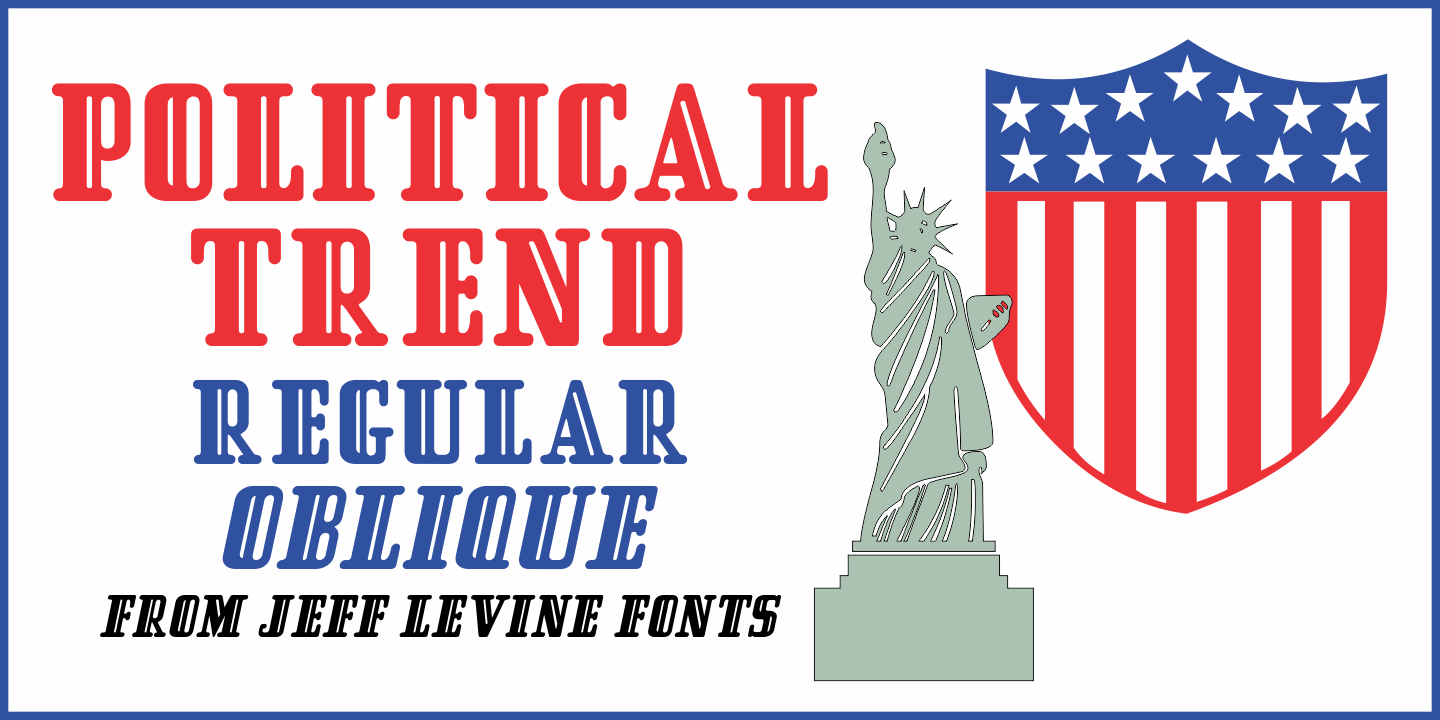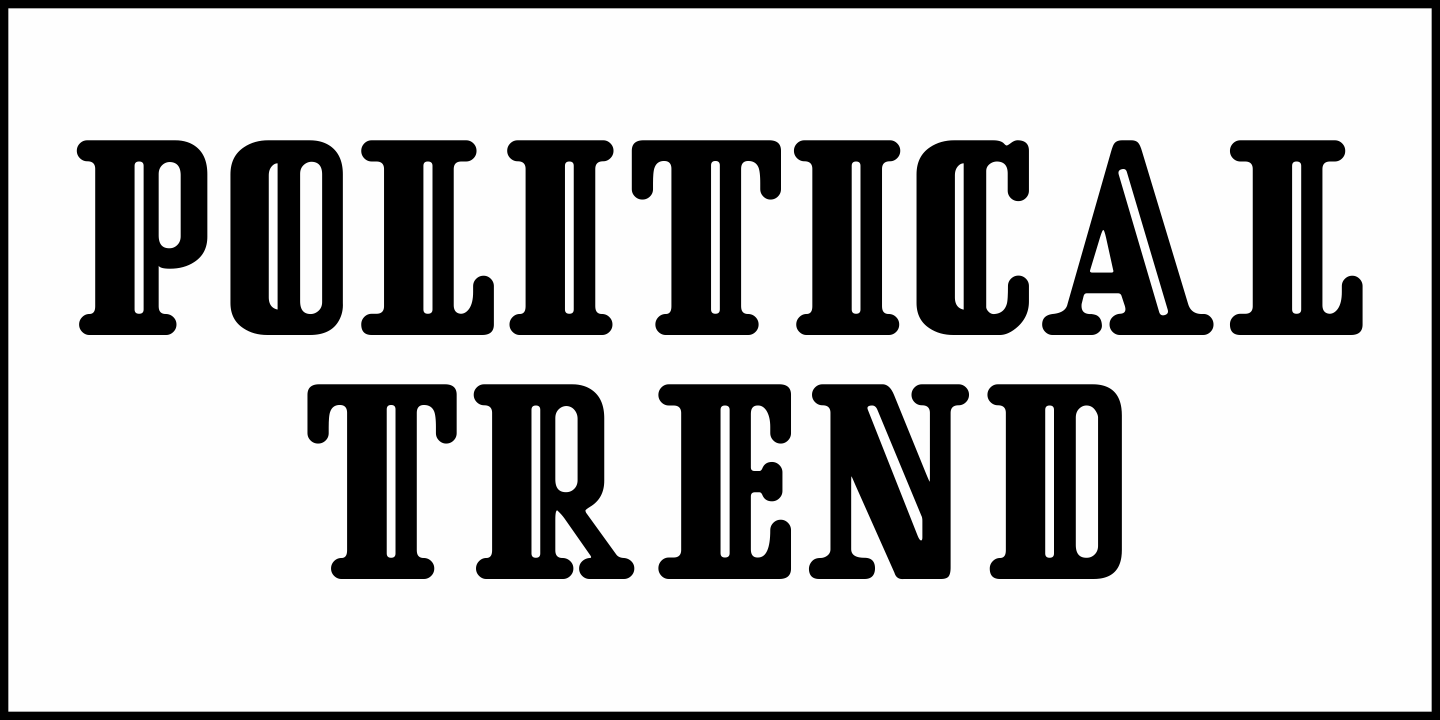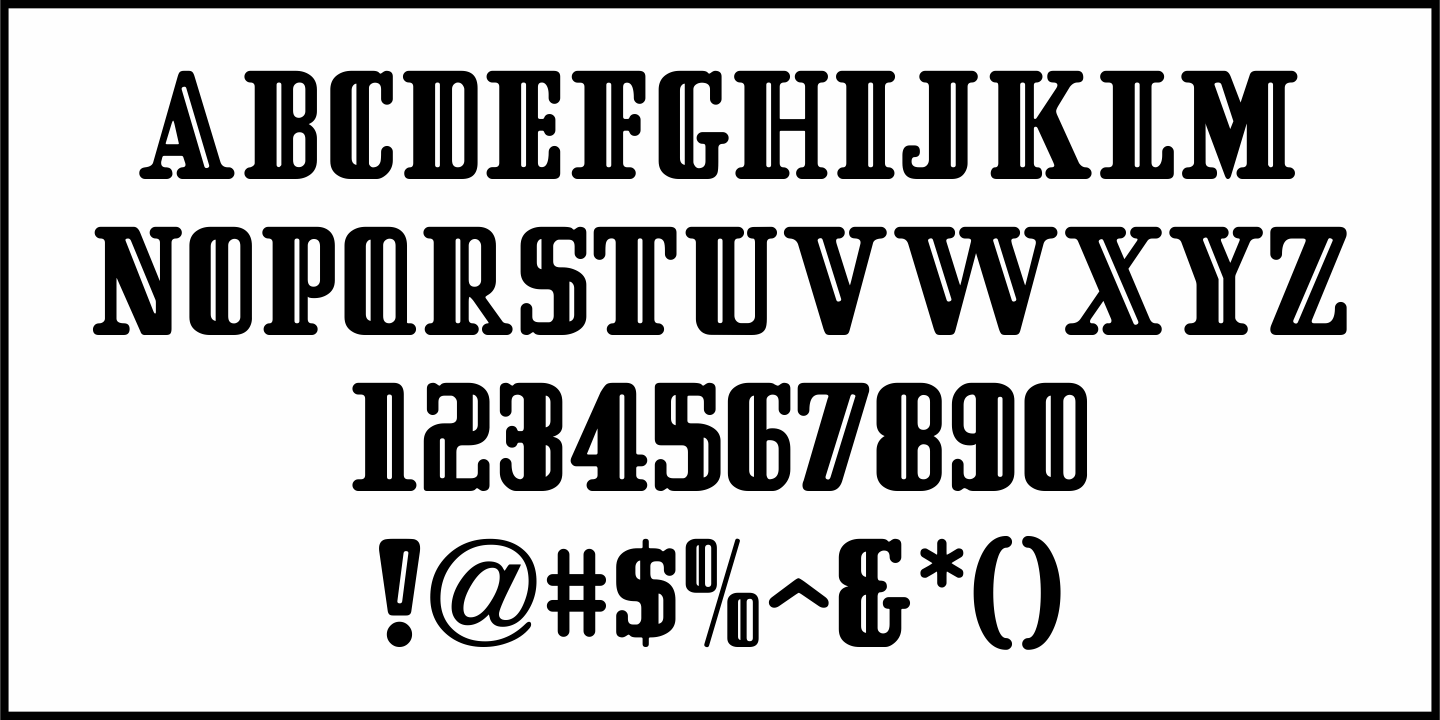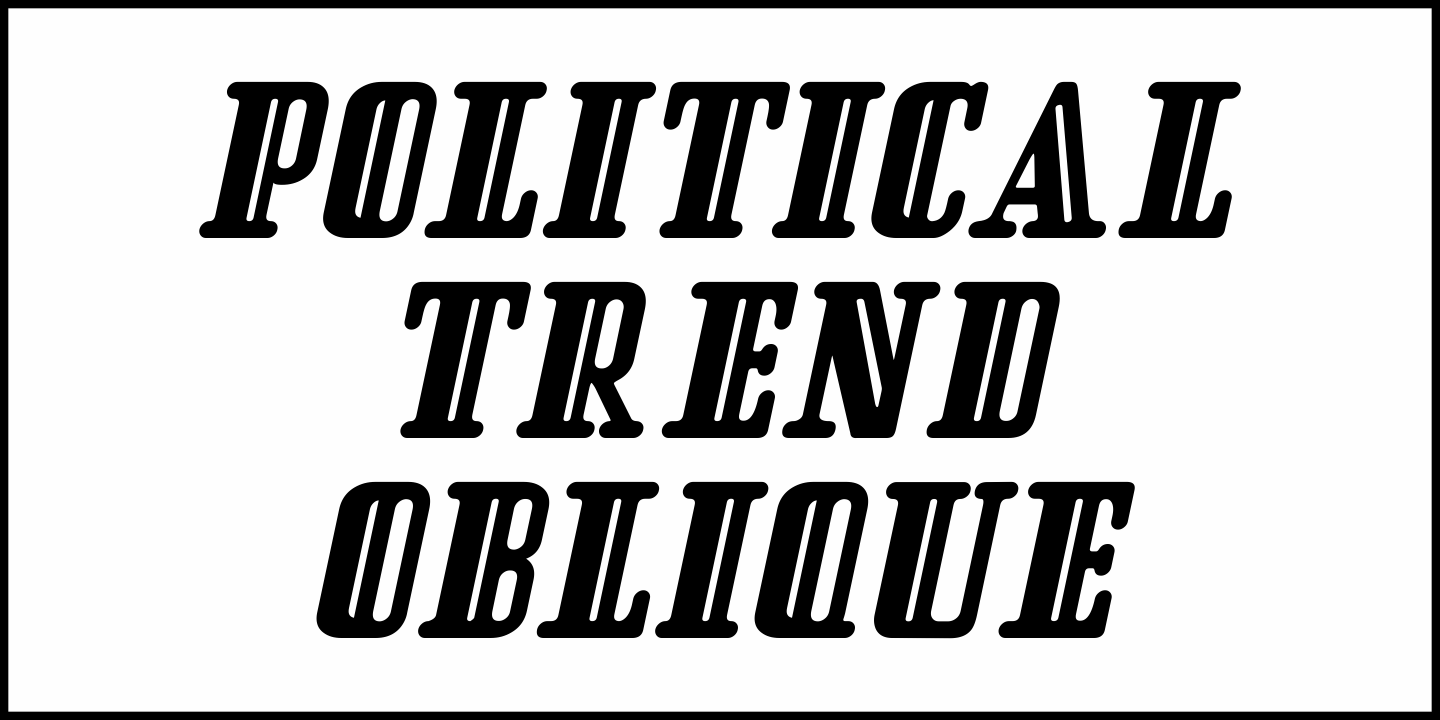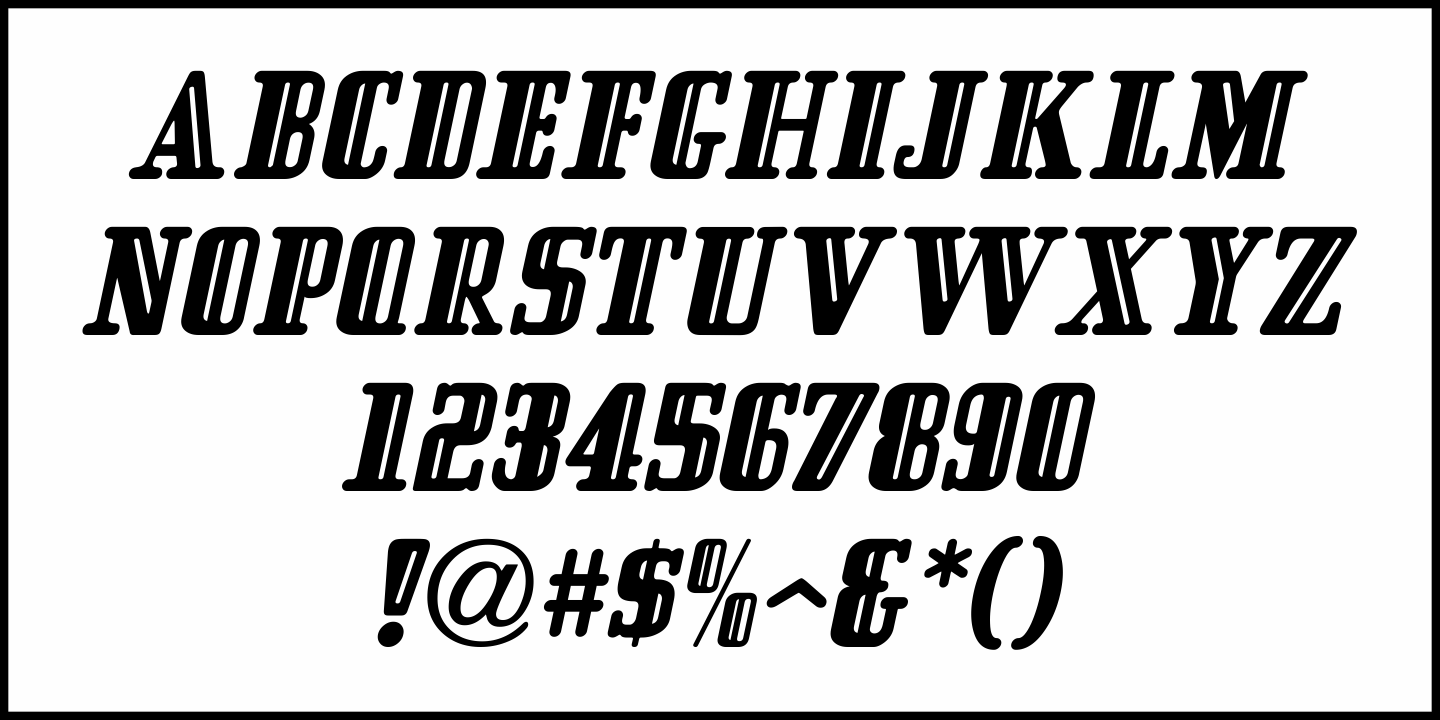
Political Trend
An ad in the May 27, 1939 issue of "Motion Picture Herald" for the film "Young Mr. Lincoln" featured the film's title hand lettered in a squared, bold pen lettering with rounded terminals along with an incised 'engraving' line.
This formed the basis for Political Trend JNL, which available in both regular and oblique versions.
Political Trend JNL Regular by Jeff Levine Fonts